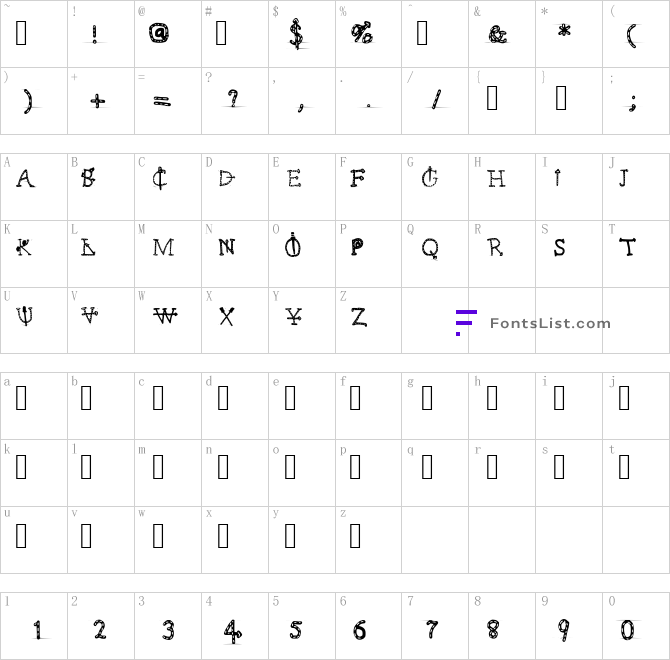
- Font Name:ANCIENT QUARREL
ANCIENT-QUARREL-Medium.ttf is a very beautiful artistic font, ANCIENT-QUARREL-Medium.ttf is widely used in the design and printing of various books and pictures,ANCIENT-QUARREL-Medium.ttf has a strong visual impact,ANCIENT-QUARREL-Medium.ttf is a commonly used font in newspapers, magazines and books, and is used in posters, e-commerce Poster design, store design, logo design, font design and other fields.ANCIENT-QUARREL-Medium.